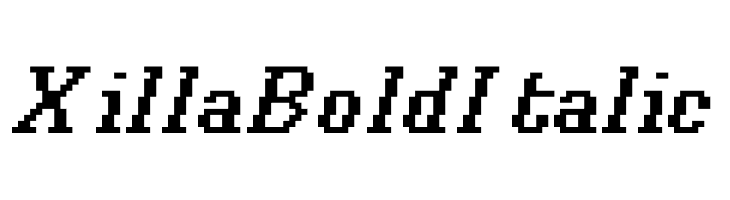
A bold, pixelated font with a retro digital style.
A bold, italicized, pixelated font with a retro digital aesthetic.
A pixelated, italic font with a retro digital aesthetic.
A bold, italicized font with a strong, dynamic presence.
A pixelated, grid-based font with a retro digital aesthetic.